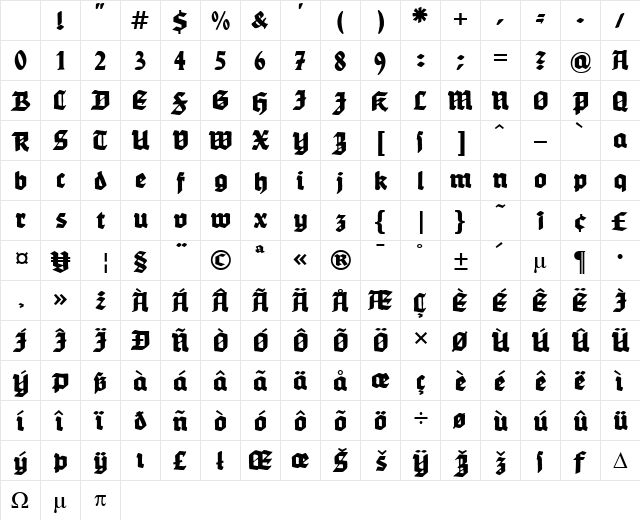
Complete WerbedeutschUNZ1L Heavy glyph index. Displaying only characters natively supported by WerbedeutschUNZ1L Heavy font.
WerbedeutschUNZ1L is a composed and adaptable typeface that performs quietly and consistently across a wide range of design contexts.